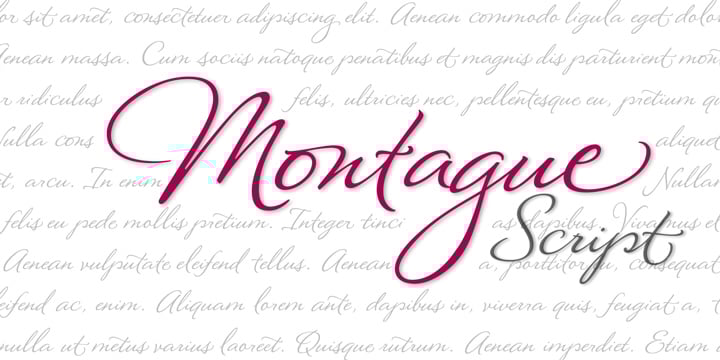
Montague Script Font is perfect for elegant wedding invitations, luxury hotel branding, sophisticated restaurant menus, high-end fashion labels, premium wine bottle designs, exclusive event stationery, aristocratic family crests, upscale boutique signage, and any design project that requires distinguished elegance and aristocratic refinement.
What makes Montague Script Font so exciting is its extraordinary ability to evoke the timeless sophistication of aristocratic penmanship with flowing letterforms that embody centuries of refined cultural heritage and elegant tradition. This font captures the essence of noble elegance with its graceful, sophisticated script that feels handwritten by masters of classical calligraphy in grand estates and distinguished salons. The carefully crafted characters feature aristocratic flourishes and refined proportions that communicate exclusivity, heritage, and impeccable taste, creating the perfect typography solution for brands and projects that demand the highest levels of sophistication and cultural refinement.
The Montague Script Font family typically includes regular weight variations with comprehensive character sets featuring uppercase and lowercase letters, numerals, punctuation marks, and elegant decorative elements. Some versions may offer additional stylistic alternates, swash characters, and ornamental flourishes that provide designers with aristocratic options for creating distinguished, heritage-inspired layouts with genuine noble appeal.
Montague Script Font Free Download has become increasingly popular among luxury brand designers, high-end event planners, and creative professionals who specialize in exclusive, sophisticated communications. This distinctive typeface performs exceptionally well in both digital and print applications where aristocratic elegance and cultural refinement are essential for connecting with discerning audiences who appreciate the finest traditions of design excellence.
The font's script design makes it particularly effective for luxury hospitality brands, exclusive fashion houses, premium lifestyle products, and cultural institutions that need to communicate heritage, exclusivity, and aristocratic distinction. Its elegant character shapes and excellent sophistication ensure professional results across various media formats.
Designers choose Montague Script Font for its ability to instantly convey aristocratic heritage and cultural sophistication while maintaining contemporary relevance for modern luxury applications. The font's distinguished construction works magnificently on everything from exclusive invitations to prestigious brand identities.
Whether you're developing luxury brand materials, exclusive event designs, aristocratic communications, or heritage-inspired publications, Montague Script Font delivers the perfect fusion of noble elegance and timeless sophistication that creates unforgettable impressions worthy of the most distinguished occasions.